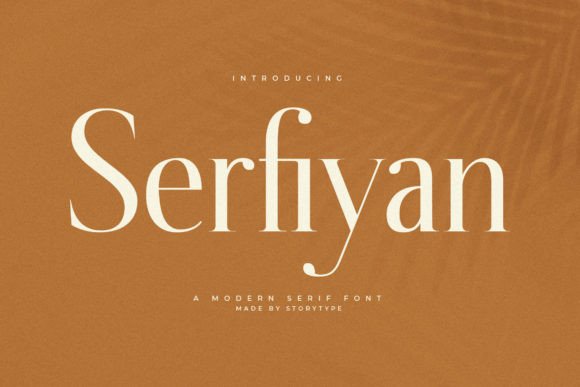
Step into the world of Serfiyan Font, a modern and stylish serif font that captures the essence of elegance and sophistication. With its unique and eye-catching appearance, Serfiyan Font is the perfect choice for those seeking to create a profound impression through their designs.
Unleash your creativity and let your imagination soar as you explore the limitless possibilities of Serfiyan Font. This versatile font is a perfect match for designing elegant logos that exude professionalism and luxury. Elevate your fashion brand's identity with Serfiyan Font, adding a touch of sophistication to your apparel and accessories. Let your words come alive in magazines and publications, as Serfiyan Font graces the pages with its timeless beauty.
Take your designs to the next level with Serfiyan Font, the perfect companion for crafting compelling lettering and quotes. Transform your ideas into visually captivating masterpieces that resonate with your audience. Let Serfiyan Font elevate your wedding signs, adding a personal and heartfelt touch to your special day.
Serfiyan Font's versatility extends beyond the digital realm, making it the ideal choice for creating stunning physical products. Embroider Serfiyan Font onto clothing and accessories, adding a unique and personalized touch to your wardrobe. Etch Serfiyan Font onto signage and decor, creating a cohesive and sophisticated look in any space.
With Serfiyan Font, the possibilities are endless. Embrace the elegance and charm of this modern serif font and watch your designs come to life with a touch of timeless beauty.